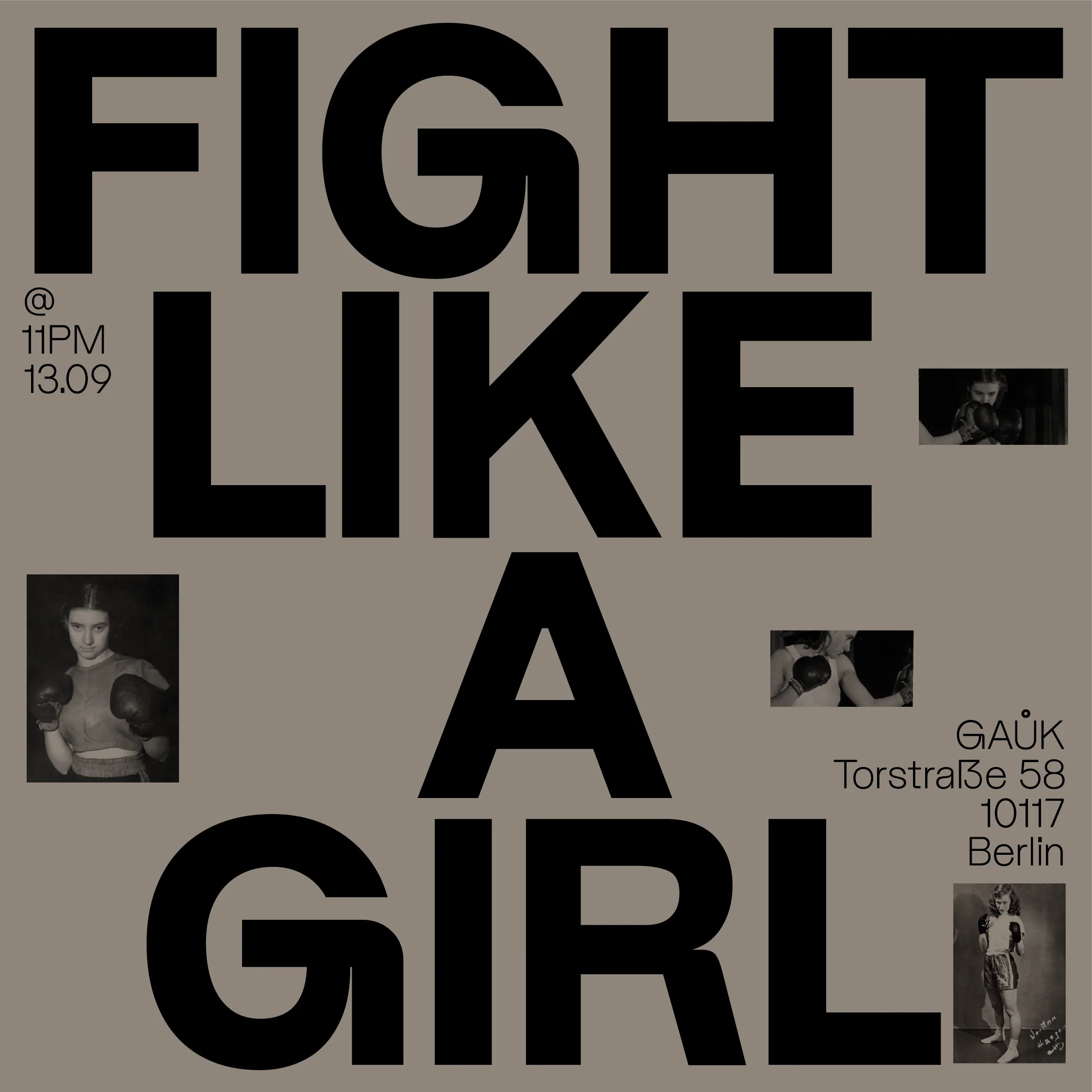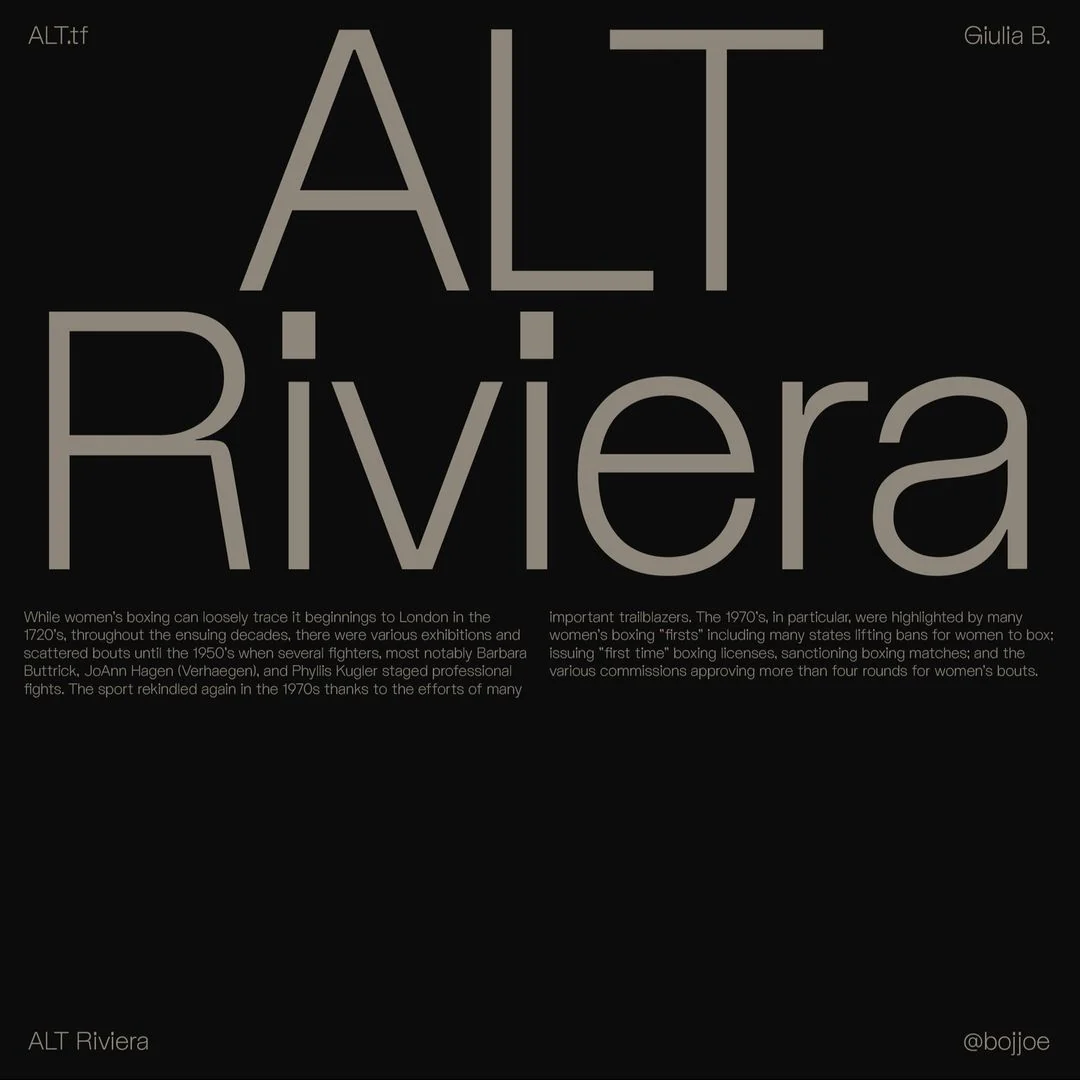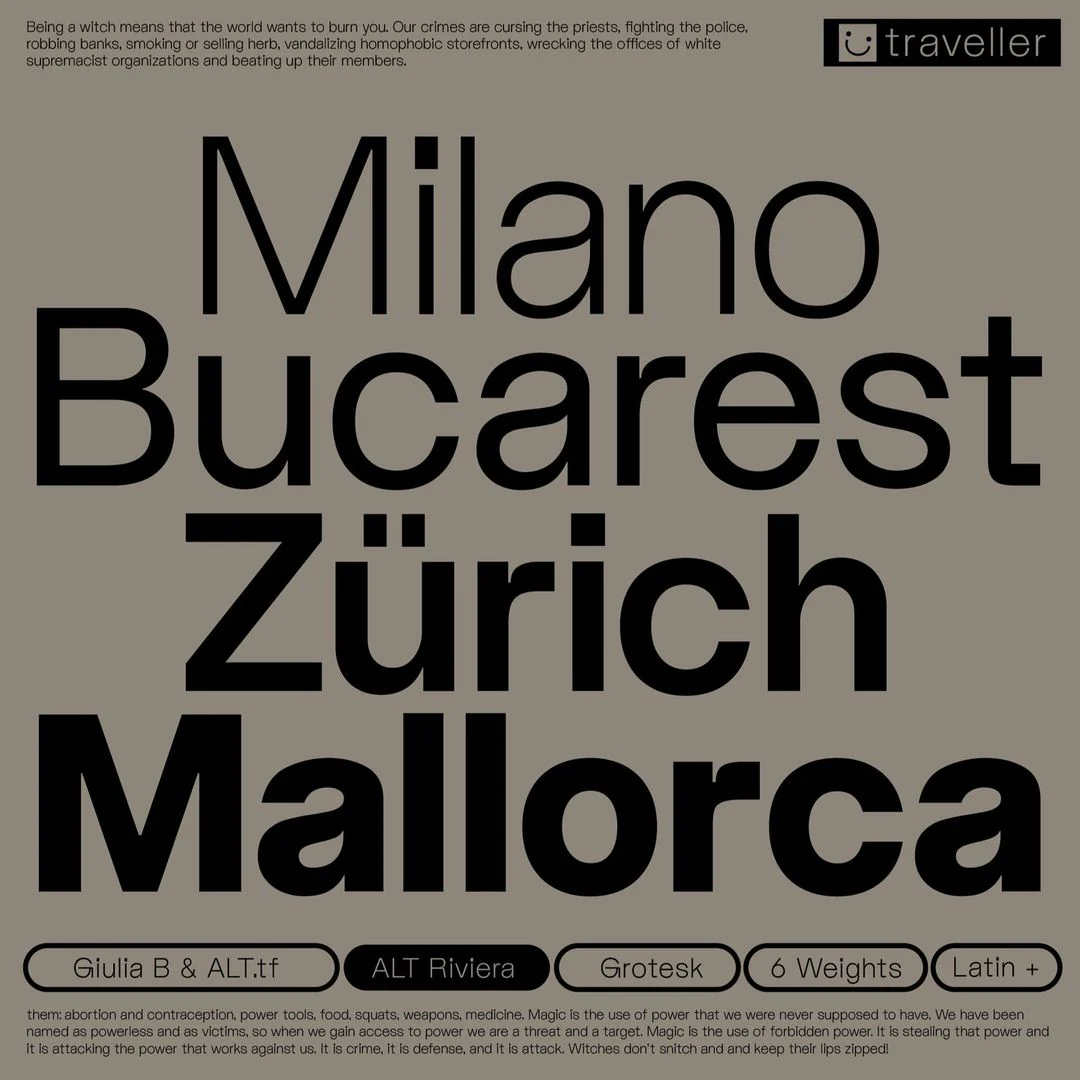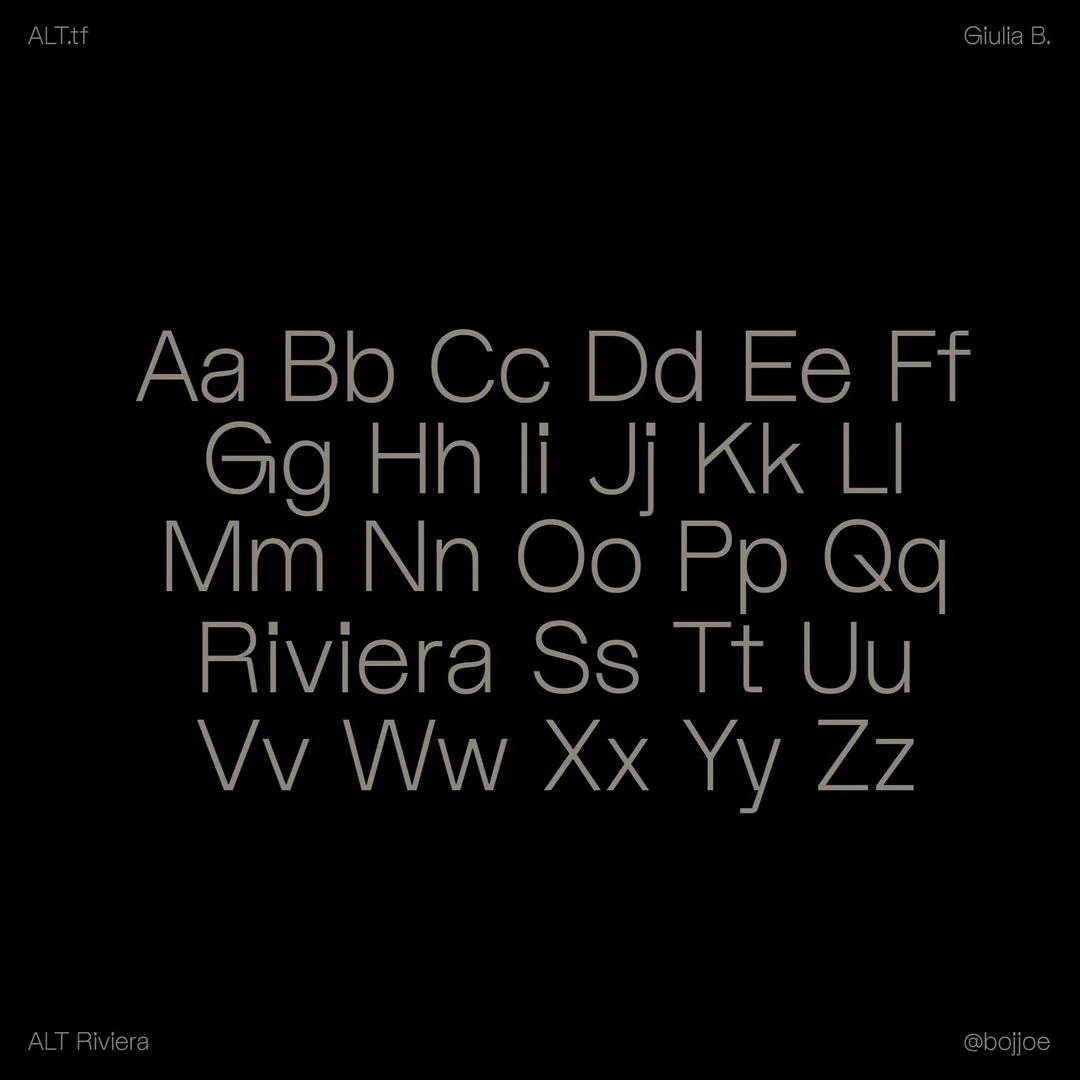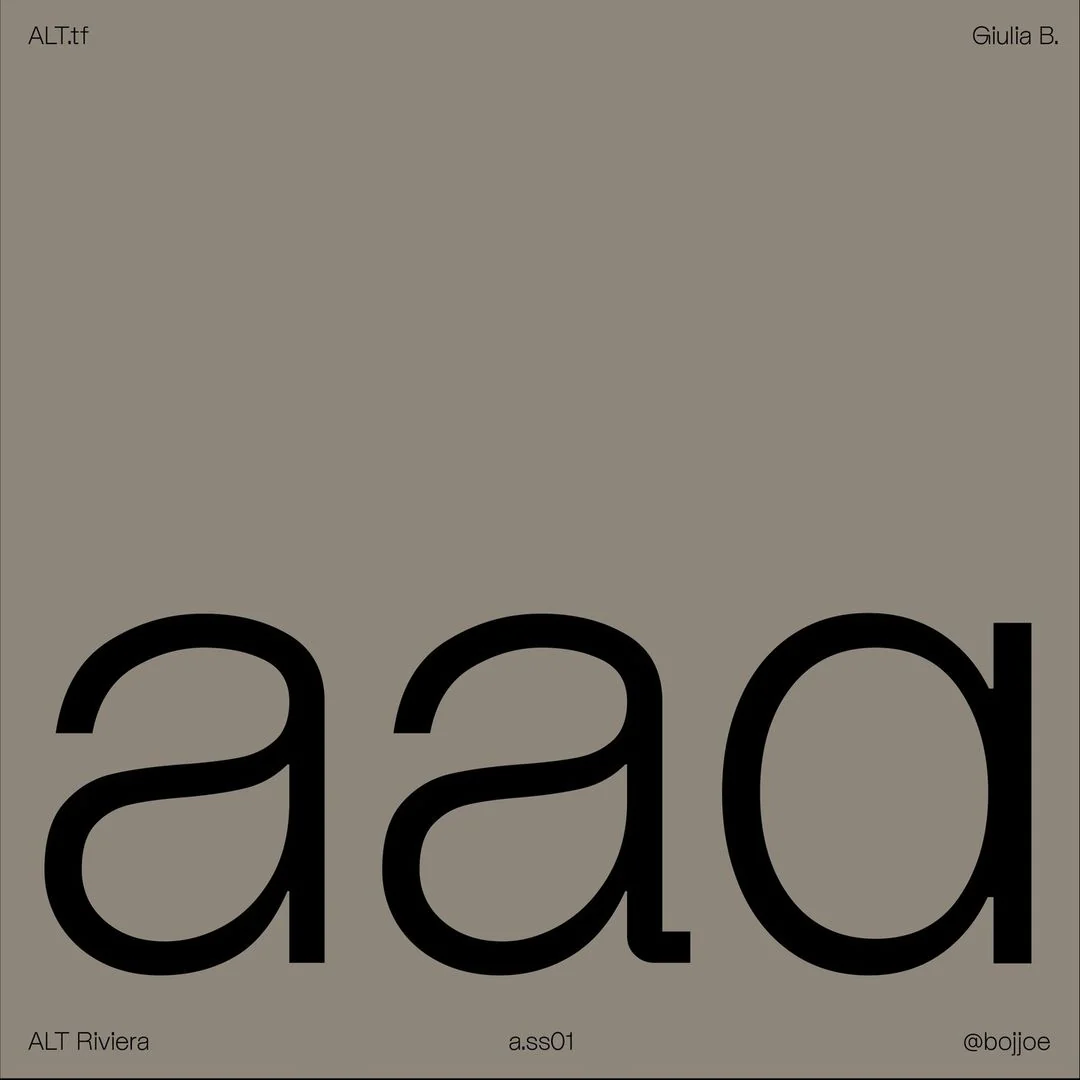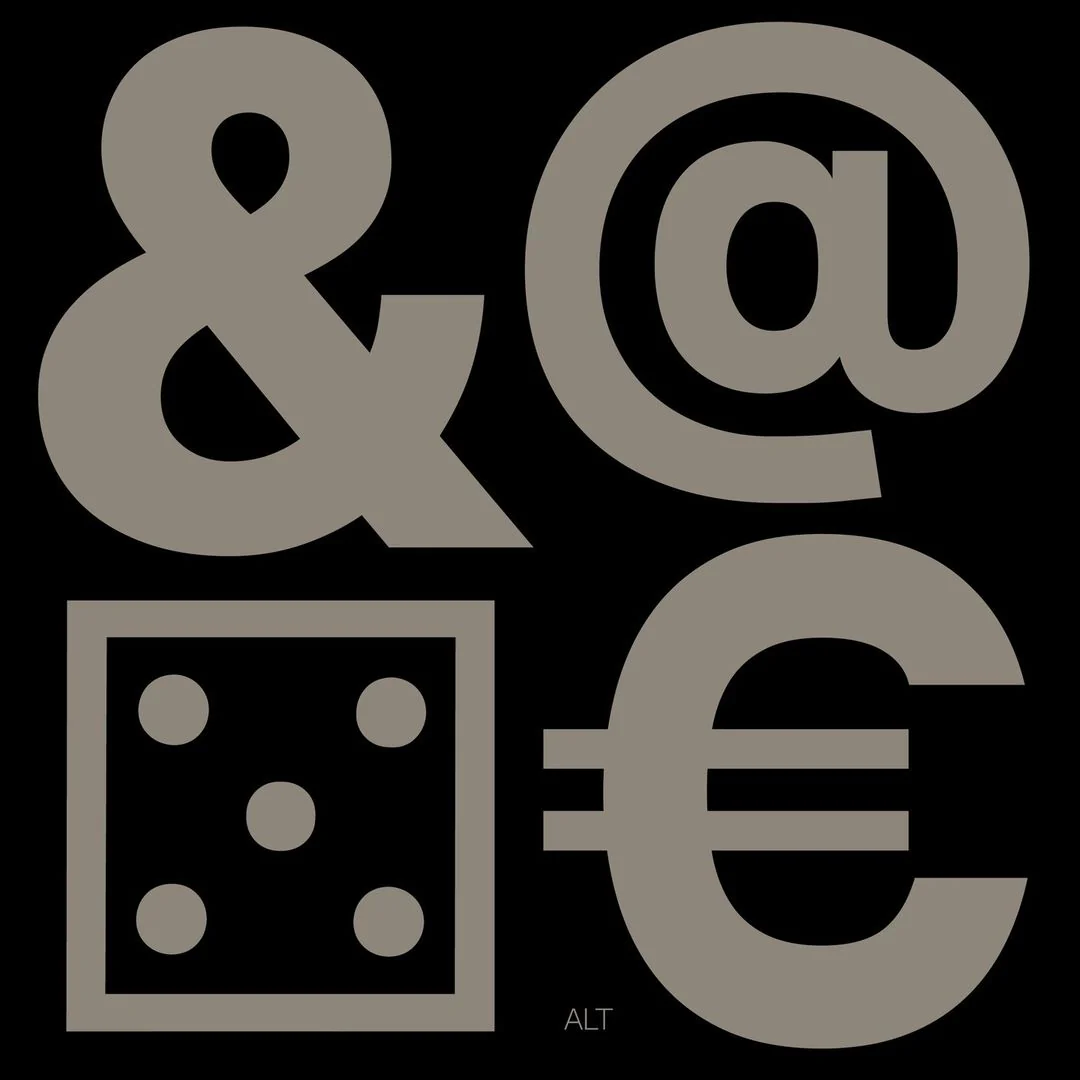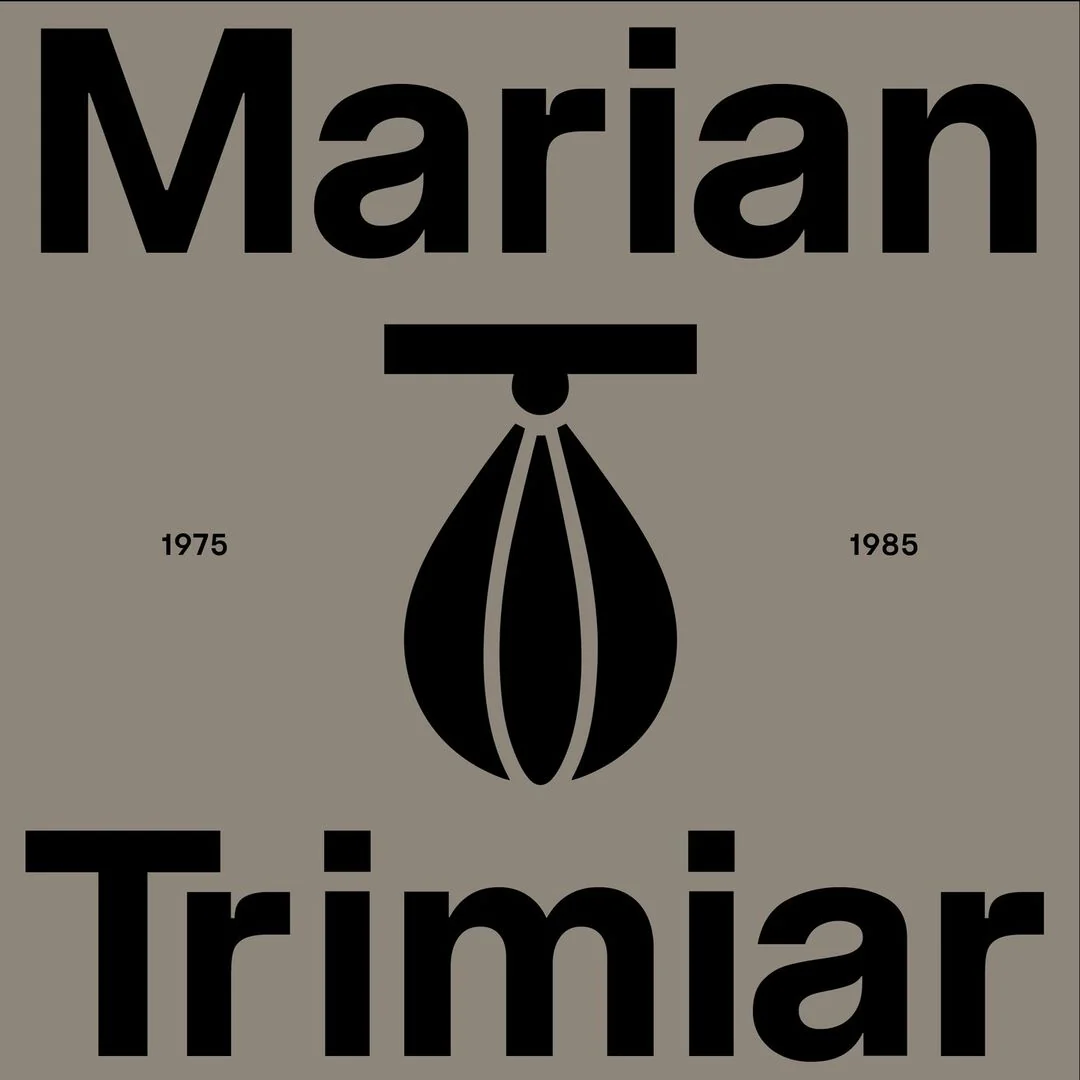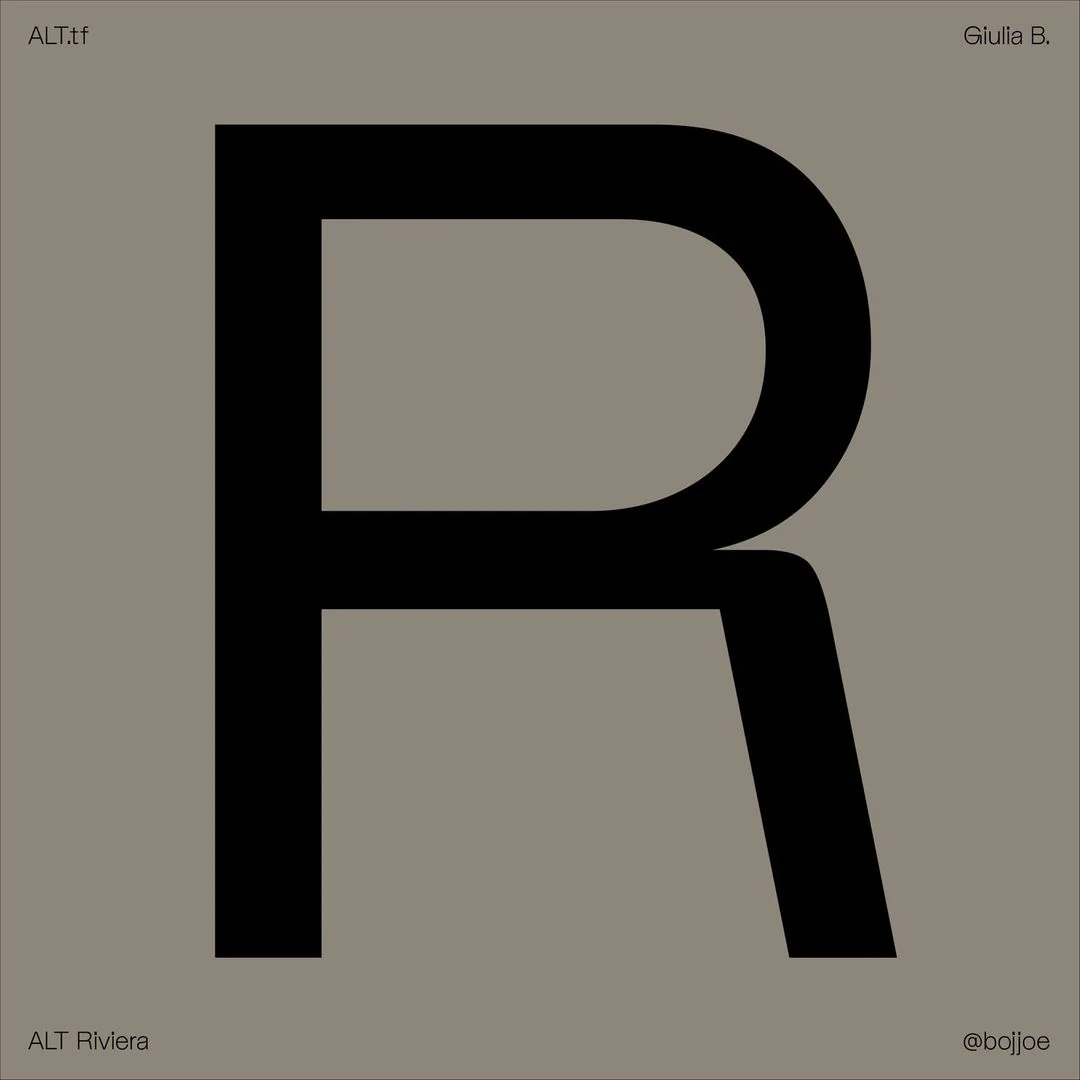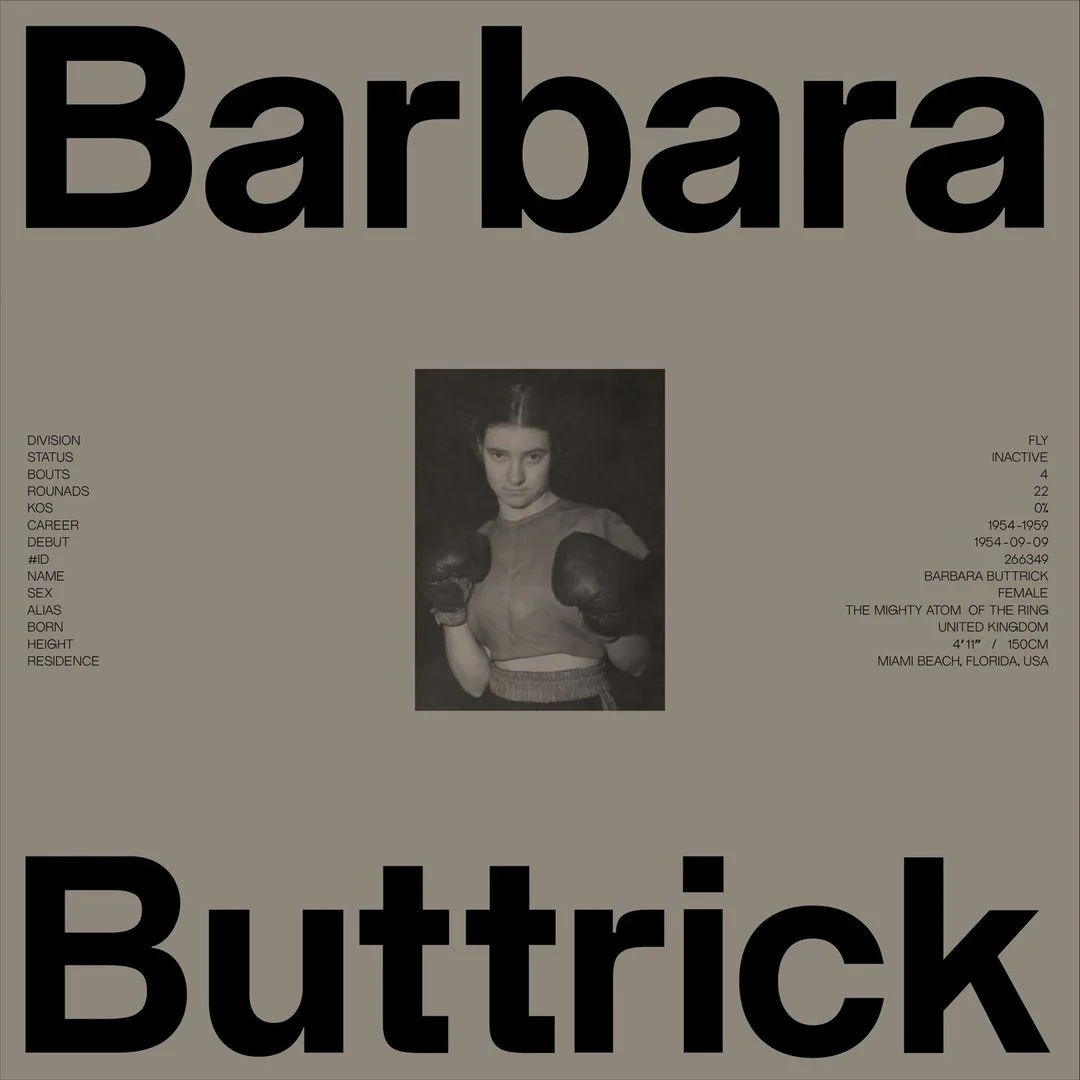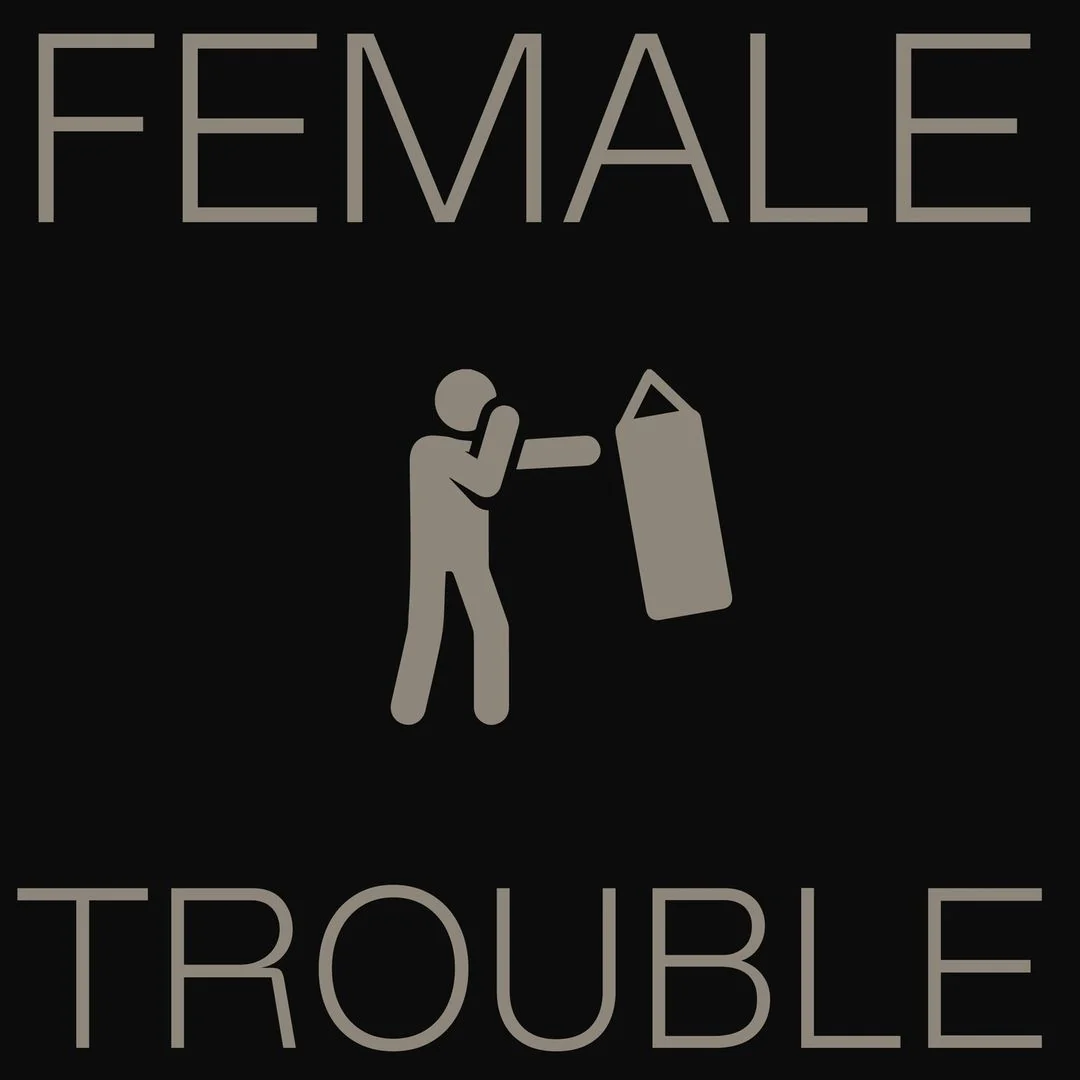
ALT Riviera
What began with the unconventional choice of developing the symbols first, ALT Riviera is a sturdy grotesk typeface integrated with the playful and expressive characteristics woven into its original symbols.
Infused with a valiant sense of character, type designer Giulia Boggio (she/they), enjoyed pitting ‘hard’ against ‘soft’ forms. In particular, they emphasise the hard shoulders of R, G, and f. “It’s really satisfying to me to look at the contrast between sharp and soft,” they say, “it’s like they’re fighting initially but no one can win so they end up making it work.”
Equipped with 6 font weights (Extralight, Light, Regular, Medium, Bold and Extrabold), ALT Riviera packs a punch, suitable for both Display and Text scenarios.